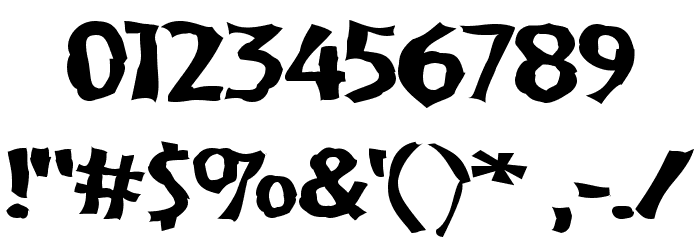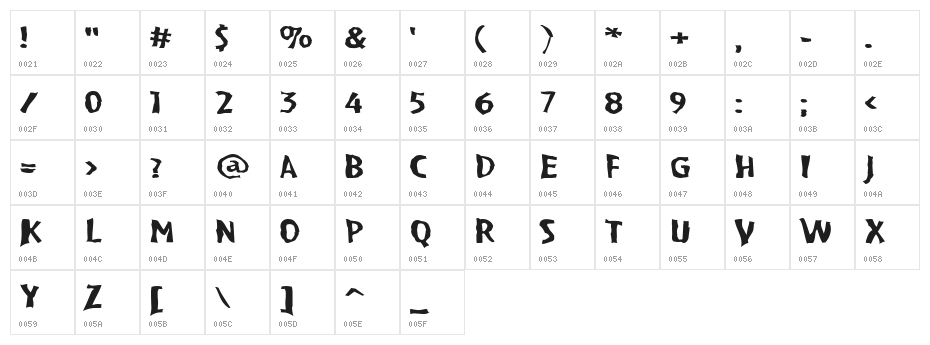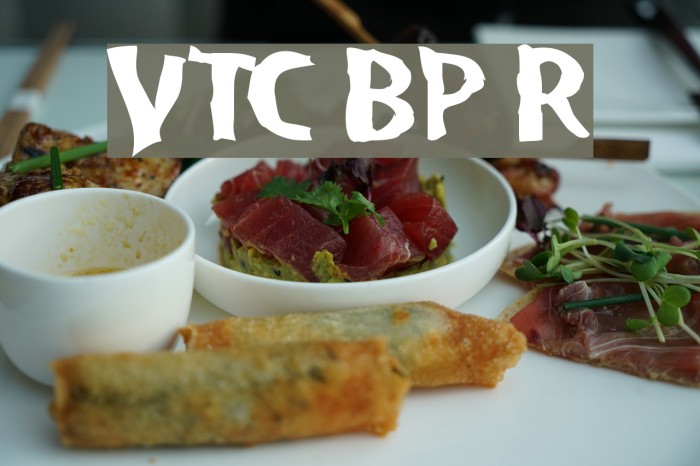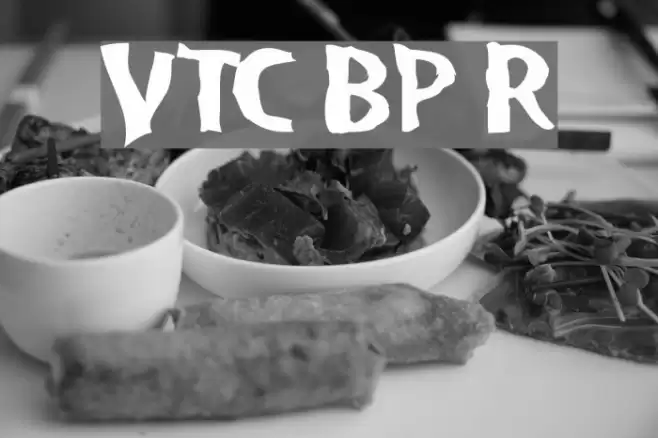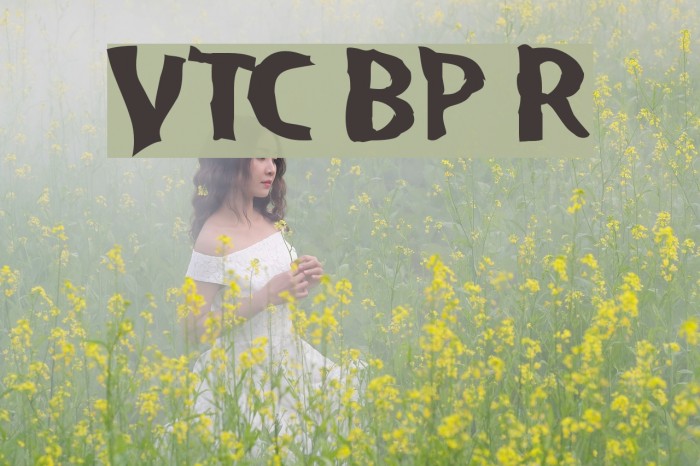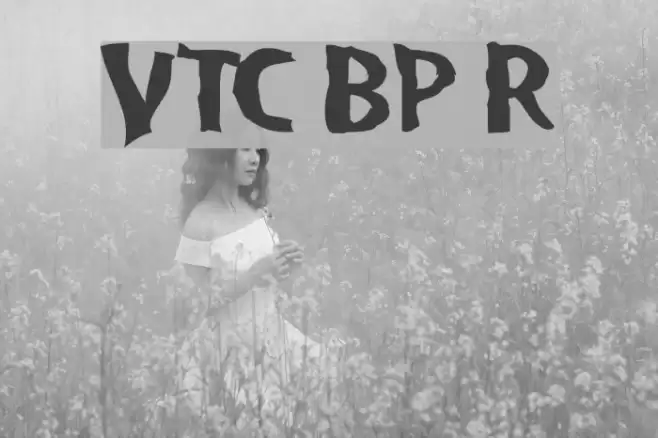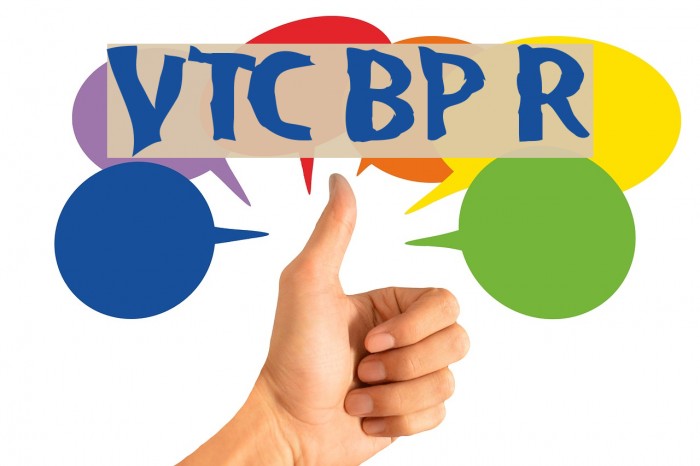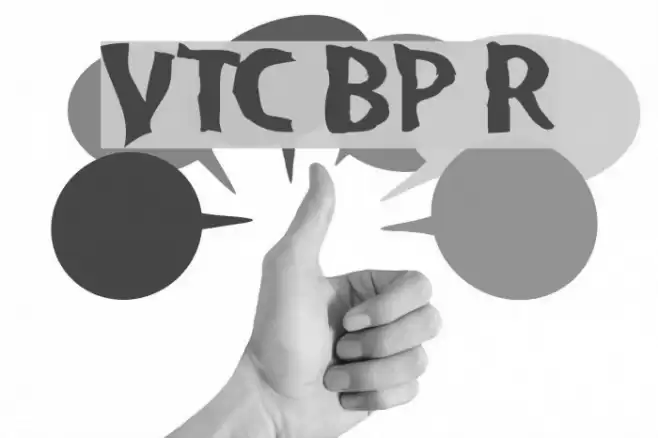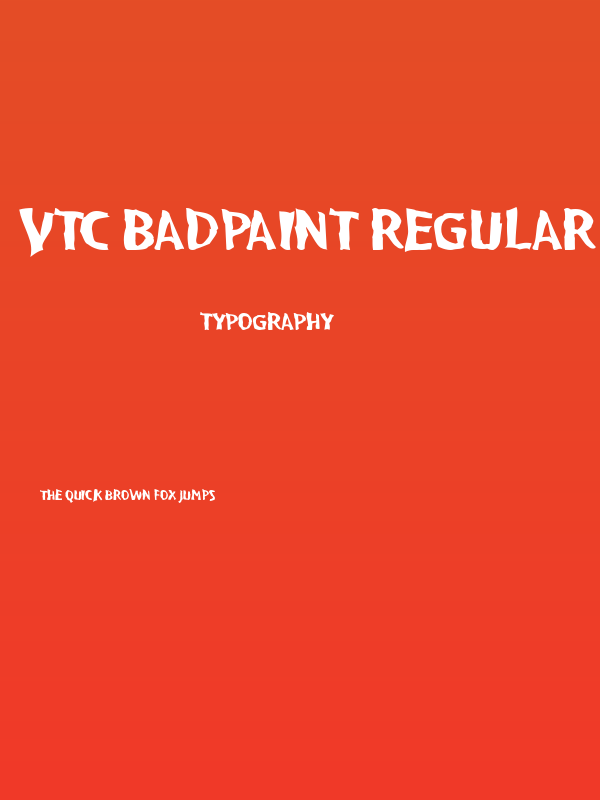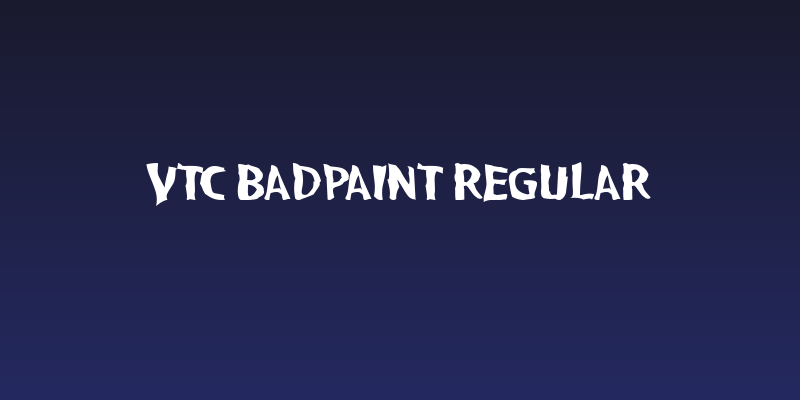
VTC BadPaint Regular Font
VTC BadPaint Regular Description
This font features a bold and expressive style, characterized by its irregular, hand-painted appearance. The letters have a rough, jagged edge, giving them a dynamic and energetic feel. The strokes are thick and uneven, adding to the font's raw and artistic look. It captures a sense of movement and spontaneity, reminiscent of graffiti or street art. The uppercase and lowercase letters maintain a consistent style, with exaggerated curves and angles that create a sense of urgency and excitement. The numbers and special characters follow the same aesthetic, ensuring a cohesive look across all text elements.
| Proposed Projects | Ideal for projects that require a bold, artistic touch, such as posters, album covers, or street art-inspired designs. |